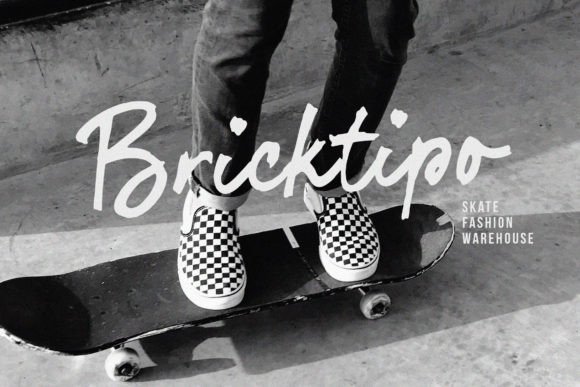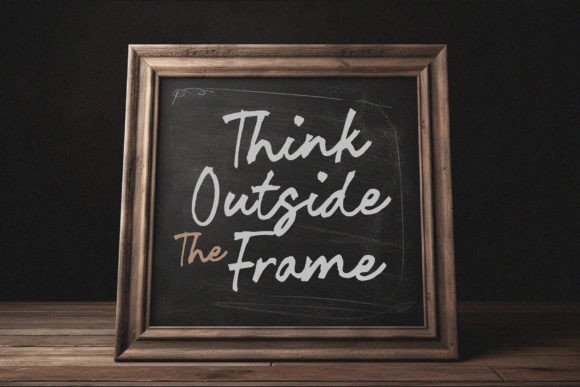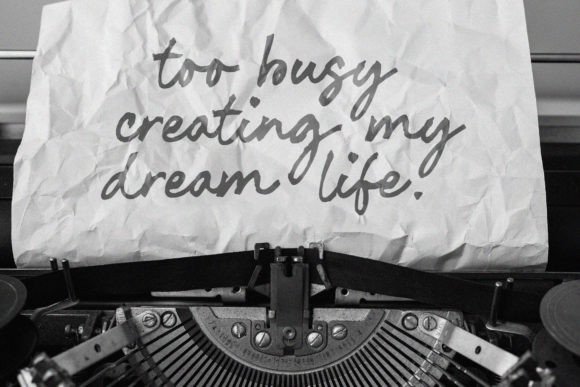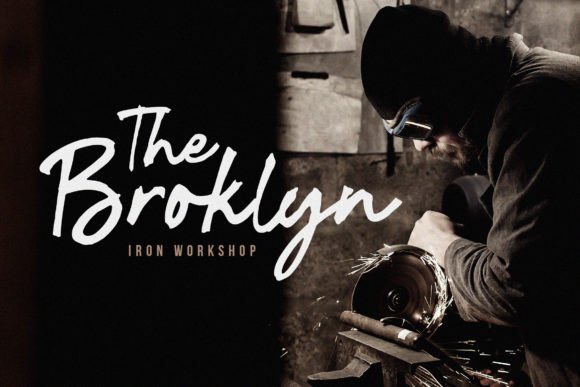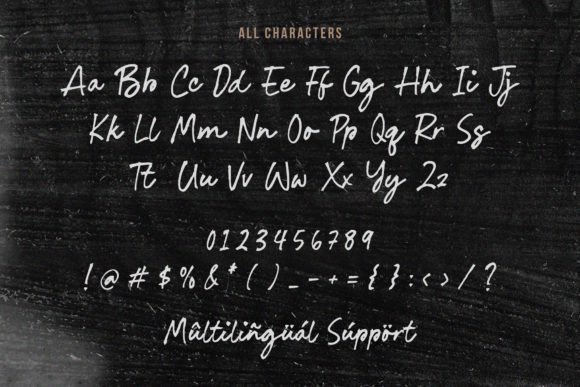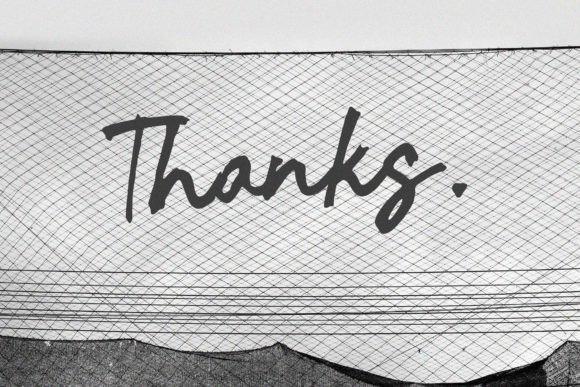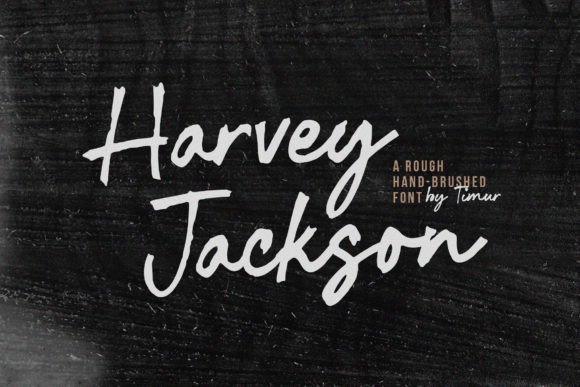
Introducing Harvey Jackson Font: Unleash Your Creative Expression
In the world of typography, fonts play a crucial role in conveying the tone and personality of a brand or creative project. For designers and crafters seeking a unique and captivating font, Harvey Jackson Font is an excellent choice. This dynamic rough handbrushed font exudes a raw, artistic flair, making it perfect for projects that demand a touch of authenticity and bold character.
The Essence of Harvey Jackson Font
Harvey Jackson Font is a bold and expressive typeface that captures the essence of spontaneous creativity and rugged charm. Its bold, uneven strokes and textured edges give it a distinctive, handcrafted feel that’s ideal for adding a personal touch to various design projects. Whether you’re working on logos, posters, social media graphics, or branding materials, this font is sure to make a statement.
Key Features of Harvey Jackson Font
- Dynamic Rough Handbrushed Style: Harvey Jackson Font boasts a unique, handbrushed style that adds a touch of raw creativity to any design project.
- Bold and Uneven Strokes: The font’s bold, uneven strokes create a sense of movement and energy, making it perfect for conveying a sense of authenticity and bold character.
- Textured Edges: The textured edges of Harvey Jackson Font add a layer of depth and visual interest, giving your designs a distinctive, handcrafted feel.
- Versatile and Adaptable: This font is suitable for a wide range of design projects, from logos and posters to social media graphics and branding materials.
Why Choose Harvey Jackson Font?
For designers and crafters seeking a font that can help them stand out from the crowd, Harvey Jackson Font is an excellent choice. Here are just a few reasons why:
- Unique and Eye-Catching: Harvey Jackson Font is a one-of-a-kind typeface that’s sure to grab attention and leave a lasting impression.
- Expressive and Authentic: The font’s bold, handbrushed style conveys a sense of authenticity and creativity, making it perfect for brands and projects that value individuality.
- Easy to Read and Versatile: Despite its bold and expressive style, Harvey Jackson Font is easy to read and versatile enough to be used in a variety of design projects.
How to Use Harvey Jackson Font in Your Designs
Harvey Jackson Font is an incredibly versatile typeface that can be used in a wide range of design projects. Here are a few ideas to get you started:
- Logos and Branding Materials: Use Harvey Jackson Font to create a bold and memorable logo that captures the essence of your brand.
- Posters and Flyers: Add a touch of creativity and energy to your posters and flyers with this dynamic font.
- Social Media Graphics: Use Harvey Jackson Font to create eye-catching social media graphics that stand out from the crowd.
In conclusion, Harvey Jackson Font is a unique and captivating typeface that’s perfect for designers and crafters seeking to add a touch of authenticity and bold character to their design projects. With its bold, uneven strokes and textured edges, this dynamic rough handbrushed font is sure to make a statement. Whether you’re working on logos, posters, social media graphics, or branding materials, Harvey Jackson Font is an excellent choice.